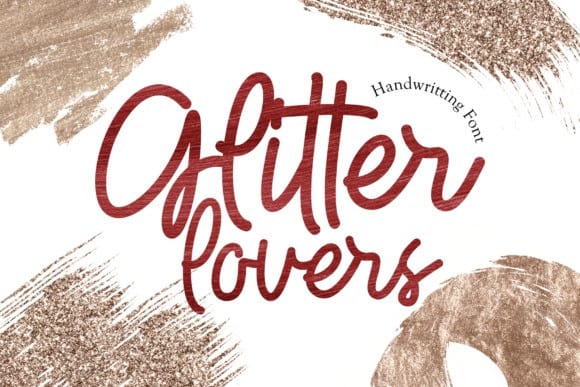
Glitter Lovers Script Font
Glitter Lovers Font for food, cake, and any food industry Script font, can make your text appear elegant, luxurious, and modern!
Glitter Lovers is perfect for branding projects, logo, Food Vlogger, Blogger, social media posts, advertisements, product packaging, tshirt design, product designs, label, photography, watermark, invitation, stationery, and any projects.